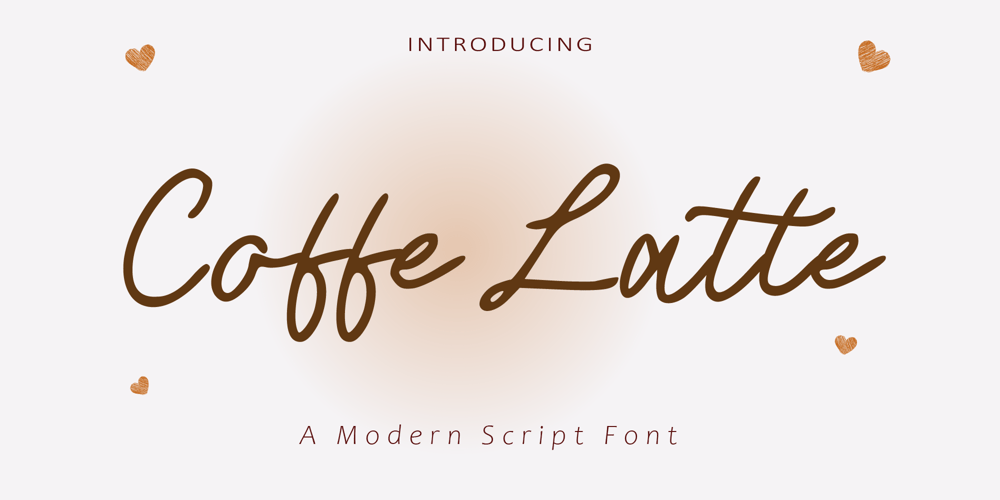
Coffe Latte Font Family was designed by Khalifah Ibrahim and published by Ibrahima Studio. Coffe Latte contains 2 styles and family package options. Coffe Latte is a modern handwritten script typeface that looks so awesome. This font looks so feminine and bold, that it is perfect when paired with an uppercase serif or sans serif font.Coffe Latte is perfect for branding projects, logo, wedding designs, social media posts, advertisements, product packaging, product designs, label, photography, watermark, invitation, stationery and any projects that need handwriting taste.